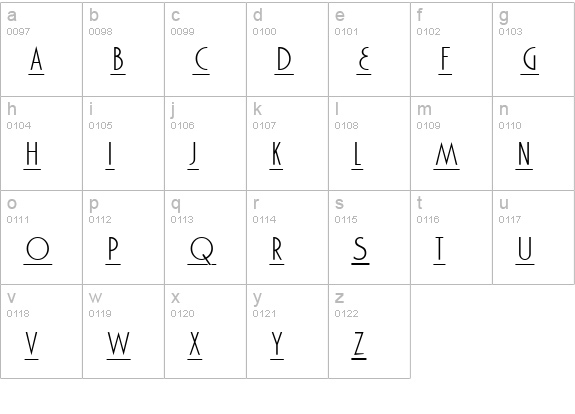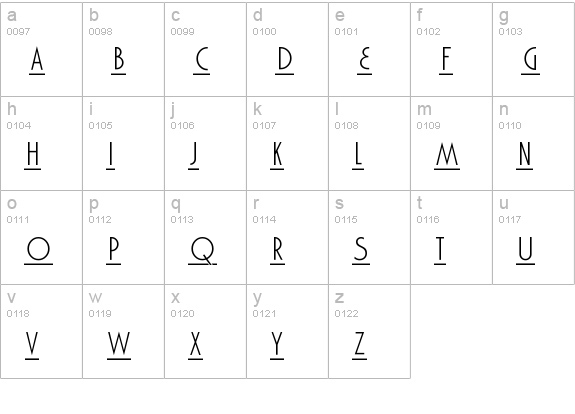
Marquisette BTN Lined Light is a refined, elegant variant in the Marquisette typeface family \xE2\x80\x94 well suited to elegant body text, refined sub-headings, and luxury branding.
Introducing Marquisette BTN Lined Light, a stunning font that effortlessly combines elegance and versatility. This exquisite typeface is perfect for adding a touch of sophistication to any design project. With its clean lines and delicate curves, Marquisette BTN Lined Light exudes a sense of refined beauty that is sure to captivate your audience. This font is not only visually appealing, but it also offers incredible functionality. Whether you're designing a logo, creating a branding package, or crafting an eye-catching poster, Marquisette BTN Lined Light will elevate your creations to new heights. Its sleek and legible letterforms ensure optimal readability, making it suitable for both digital and print applications. One of the best aspects of Marquisette BTN Lined Light is that it is freely available to download at FontsMarket.com. This means that you can access this exceptional font without any cost, allowing you to unleash your creativity without any limitations. Whether you're a professional designer or a hobbyist, this font is a valuable addition to your typographic arsenal. The versatility of Marquisette BTN Lined Light is further enhanced by its extensive character set, which includes uppercase letters, lowercase letters, numerals, punctuation marks, and special characters. This comprehensive range of glyphs ensures that you have all the tools you need to bring your vision to life. So why wait? Download Marquisette BTN Lined Light today and experience the beauty and functionality of this remarkable font. Whether you're designing for personal or commercial projects, this font is sure to impress with its timeless elegance and impeccable craftsmanship. Don't miss out on the opportunity to enhance your designs with this free font. Visit FontsMarket.com now to get your hands on Marquisette BTN Lined Light and unlock a world of creative possibilities.